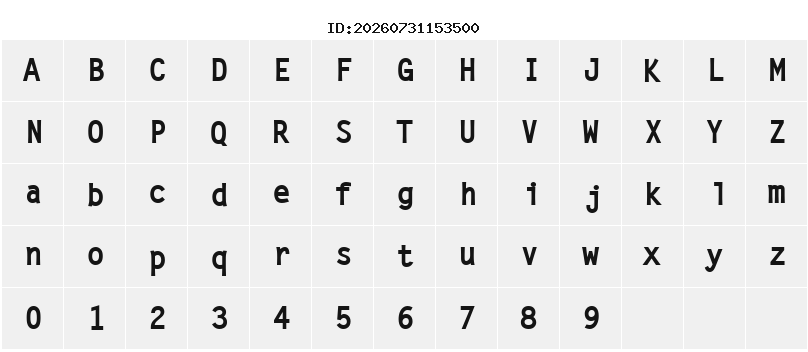
Letter Becker Bold Preview
About Letter Becker Bold.ttf
Letter Becker Bold.ttf is a modern, elegant sans-serif font designed for ultimate readability and visual harmony. Perfect for branding, headlines, web design, and print materials.